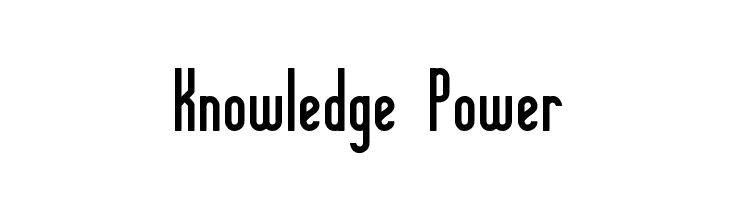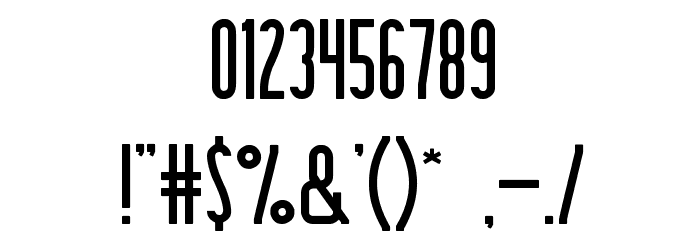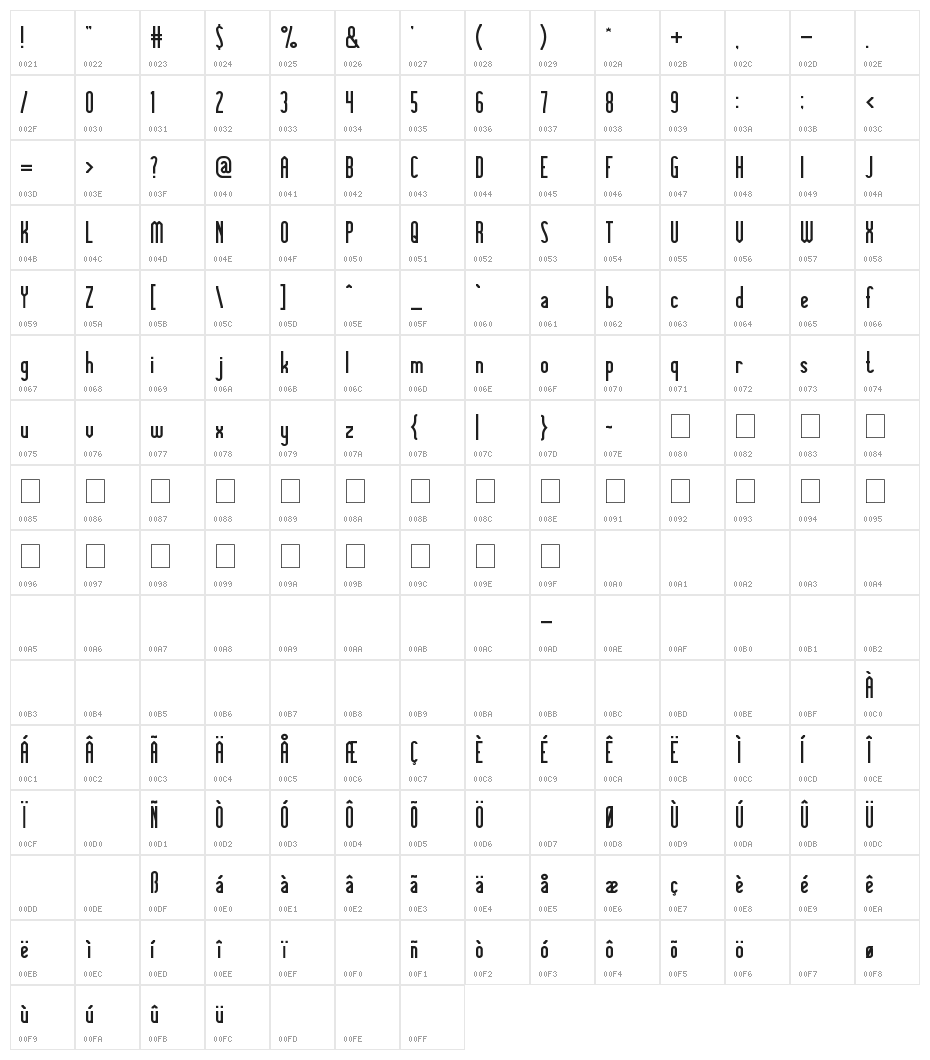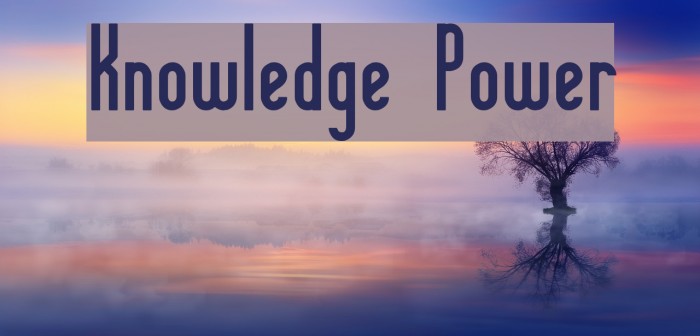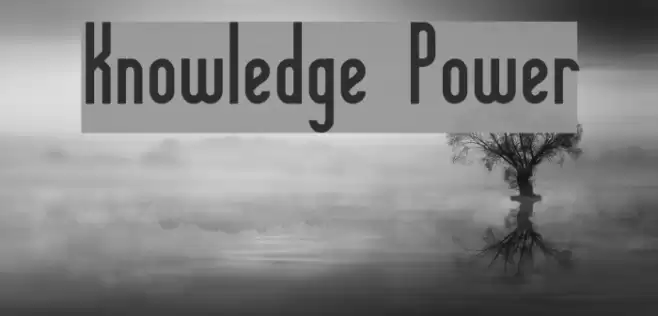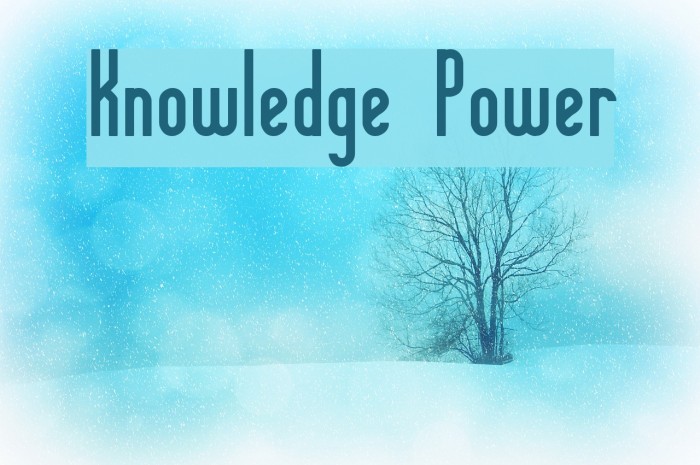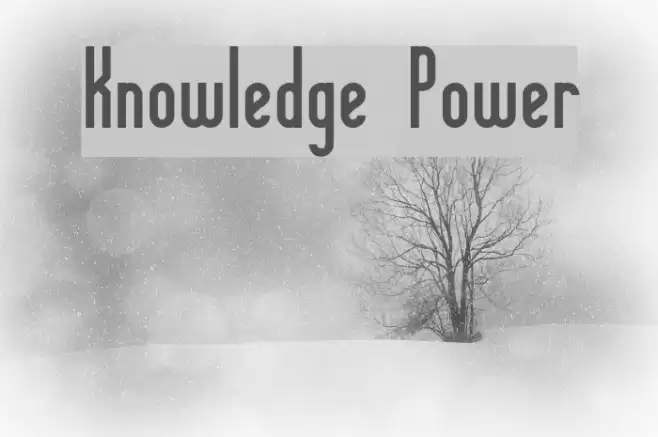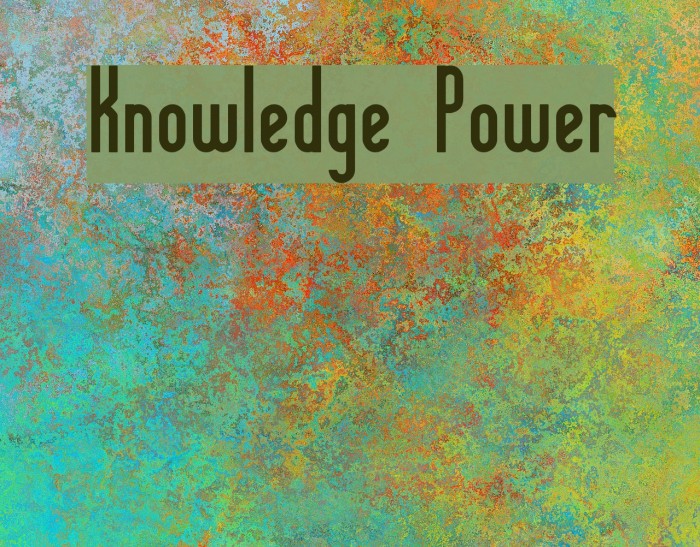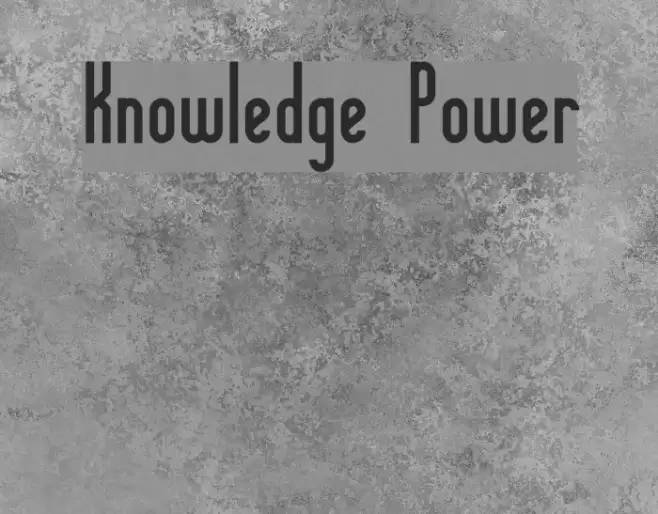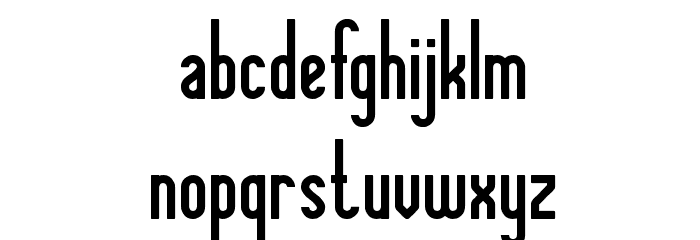
Knowledge Power Font
Knowledge Power Description
This font features a bold and condensed style with a modern, geometric appearance. The uppercase letters are tall and narrow, with consistent stroke widths that give a clean and structured look. The lowercase letters maintain the same geometric style, offering a cohesive appearance across all characters. Numbers and special characters are designed to match the overall aesthetic, ensuring uniformity. The font's design is both striking and versatile, making it suitable for various applications where a strong visual impact is desired.
| Proposed Projects | Ideal for branding, posters, headlines, and any project requiring a bold and modern typeface. |